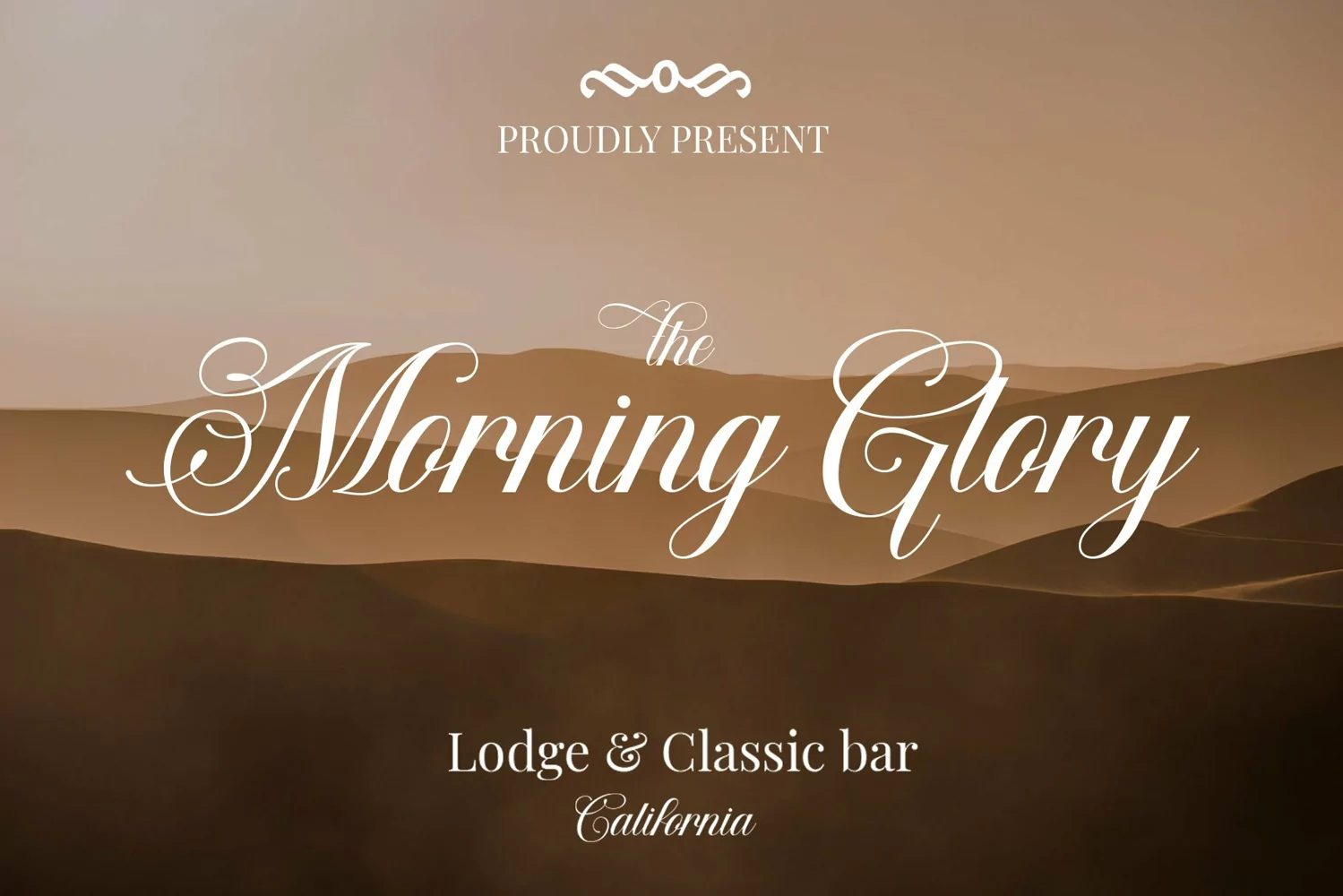
Hamingduck
**Hamingduck Font**
This pair was inspired by elegant poster design that i saw on some coffee shop, It was crafted by hand specially to add natural handmade feeling in its brand identity than i make it clean with pentool.
Hamingduck Font is very good looking in logo, labels, product packaging, invitations, advertising and others.